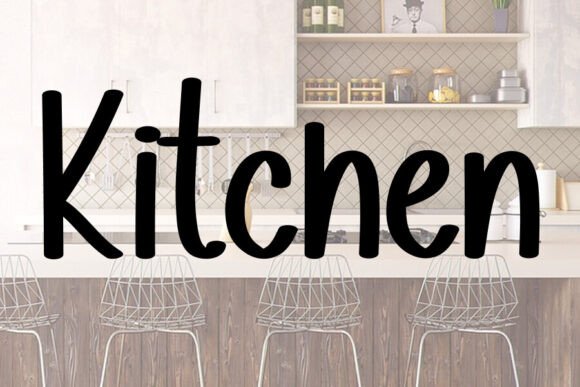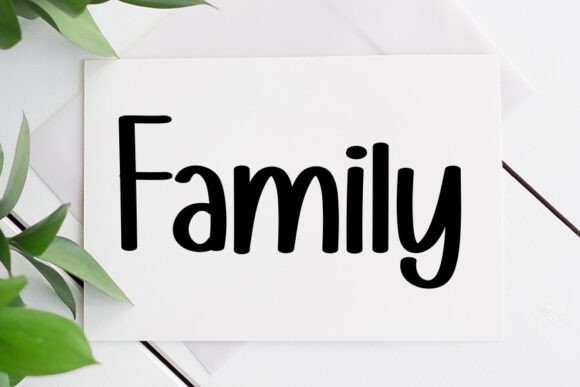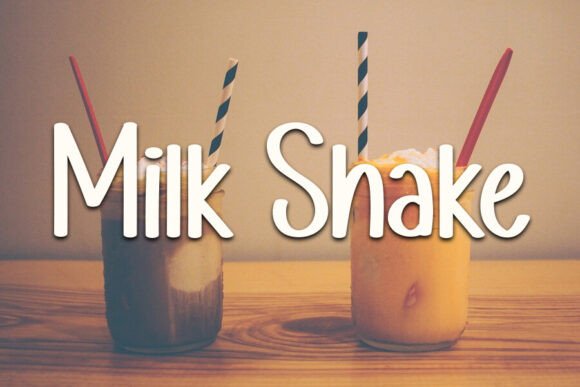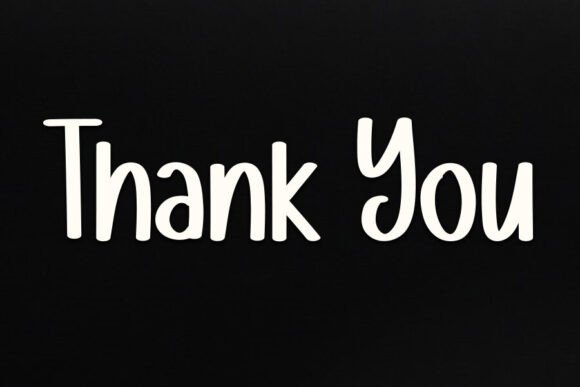
Bubbles Font: The Fun and Friendly Handwritten Font for All Occasions
Are you tired of using the same old fonts for your crafts, digital designs, presentations, and greeting cards? Look no further than Bubbles Font, a fun and friendly handwritten font that’s sure to become your new favorite go-to font. In this article, we’ll explore the features and benefits of Bubbles Font, and show you how it can elevate your designs and add a touch of personality to your projects.
What is Bubbles Font?
Bubbles Font is a beautiful, handcrafted font that’s perfect for adding a playful and whimsical touch to your designs. With its rounded edges and bouncy curves, this font is sure to bring a smile to anyone’s face. Whether you’re creating digital designs, crafting handmade cards, or designing presentations, Bubbles Font is the perfect choice for adding a personal touch.
Features of Bubbles Font
- Handwritten style: Bubbles Font is a handwritten font that’s been carefully crafted to look like it was written with love and care. The font features imperfections and quirks that give it a personal and relatable feel.
- Fun and friendly: The font’s rounded edges and bouncy curves give it a fun and friendly vibe that’s perfect for designs that need a playful touch.
- Versatile: Bubbles Font is a versatile font that can be used for a wide range of projects, from digital designs and presentations to handmade crafts and greeting cards.
- Easy to read: Despite its playful style, Bubbles Font is easy to read and understand, making it perfect for designs that need to communicate a message.
Benefits of Using Bubbles Font
So why should you choose Bubbles Font for your next project? Here are just a few benefits of using this amazing font:
- Adds personality: Bubbles Font adds a personal touch to your designs, making them stand out from the crowd and giving them a unique feel.
- Perfect for kids’ designs: The font’s playful style makes it perfect for designs aimed at kids, such as children’s books, nursery decor, and kids’ party invitations.
- Great for crafters: Bubbles Font is a great choice for crafters who want to add a personal touch to their handmade crafts, such as greeting cards, scrapbook pages, and DIY decor.
- Easy to pair: The font pairs well with a wide range of other fonts and design elements, making it easy to incorporate into your existing design style.
Using Bubbles Font in Your Designs
So how can you use Bubbles Font in your designs? Here are a few ideas to get you started:
- Digital designs: Use Bubbles Font in your digital designs, such as social media graphics, blog posts, and email newsletters.
- Handmade crafts: Add a personal touch to your handmade crafts, such as greeting cards, scrapbook pages, and DIY decor.
- Presentations: Use Bubbles Font in your presentations to add a playful and engaging touch.
- Greeting cards: Create beautiful, handmade greeting cards with Bubbles Font.
In conclusion, Bubbles Font is a fun and friendly handwritten font that’s perfect for adding a personal touch to your designs. With its rounded edges, bouncy curves, and playful style, this font is sure to become your new favorite go-to font. Whether you’re a designer, crafter, or DIY enthusiast, Bubbles Font is a great choice for any project that needs a touch of personality and whimsy.